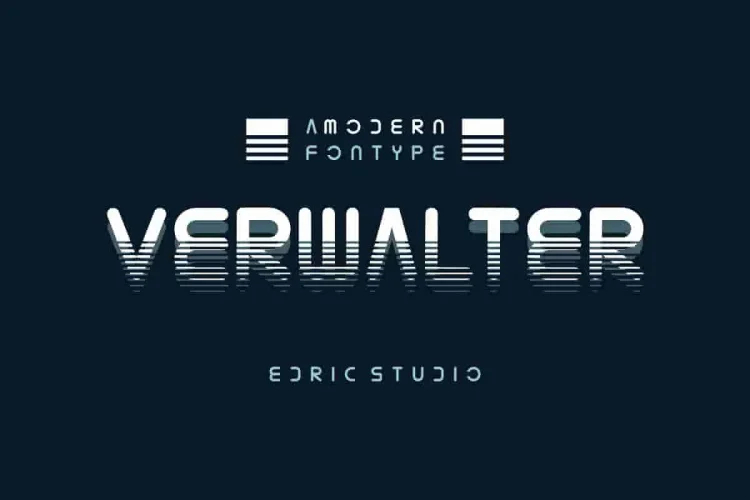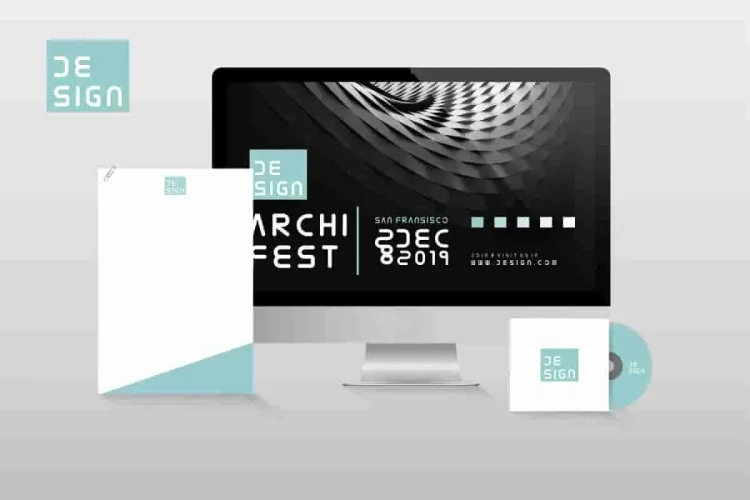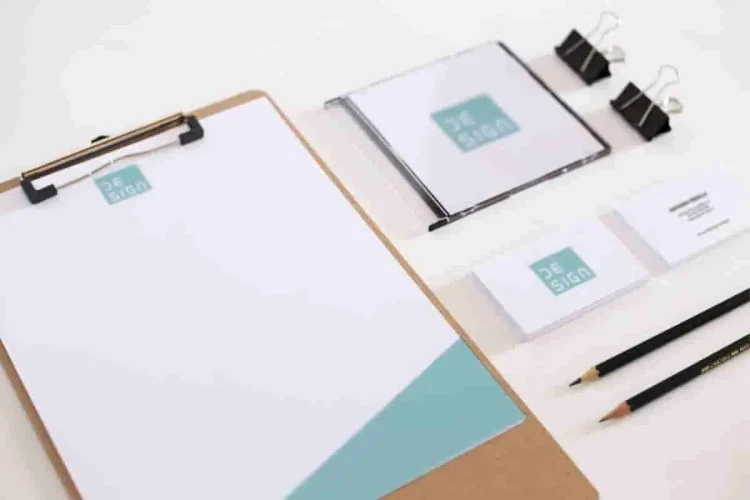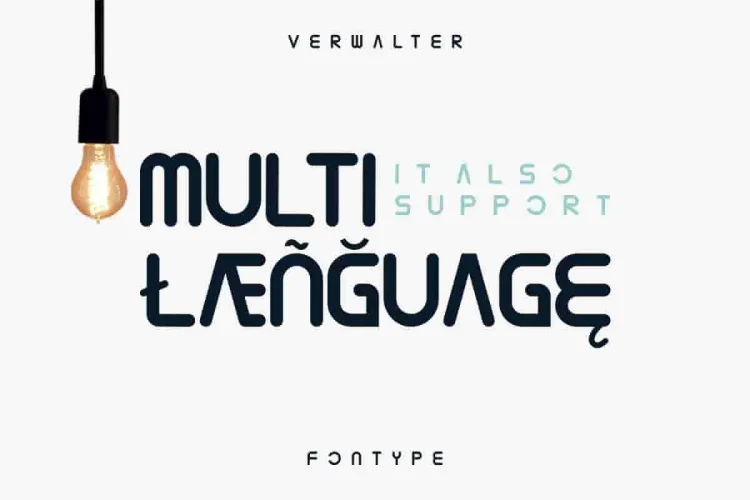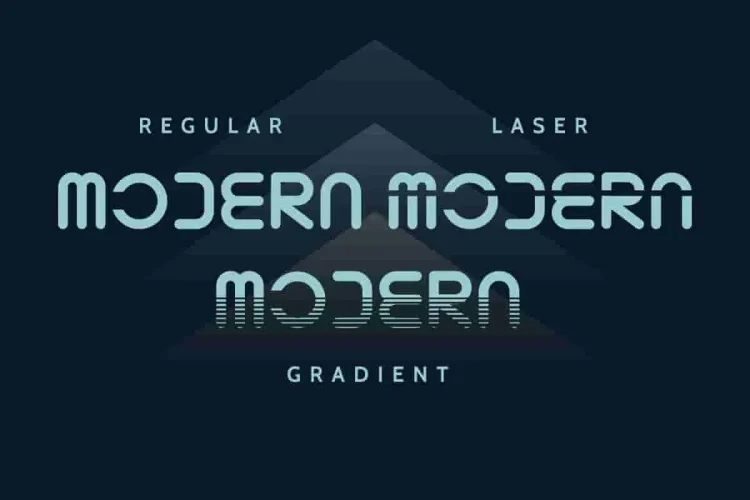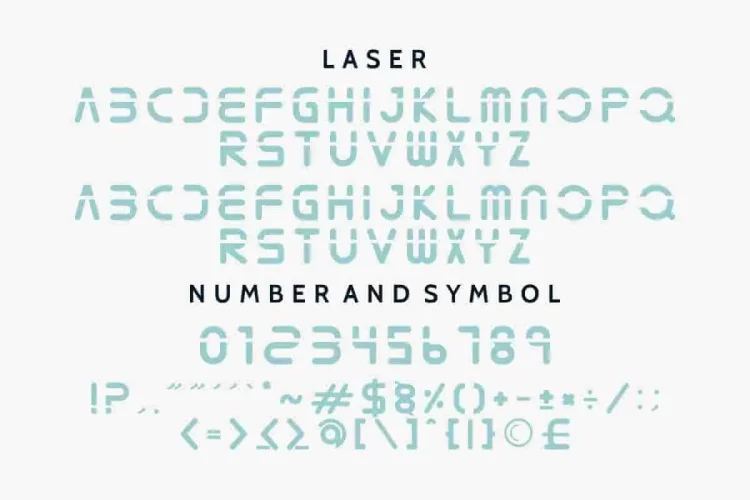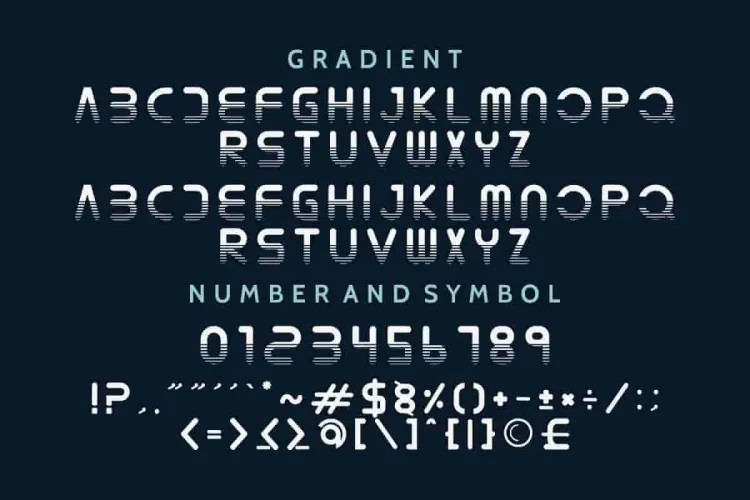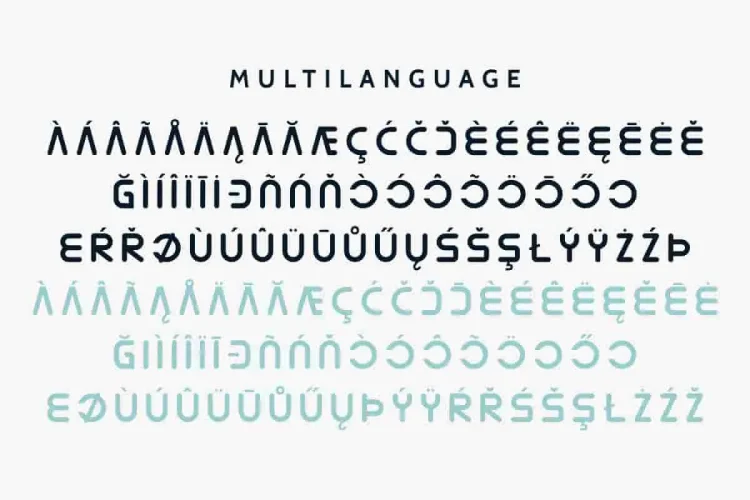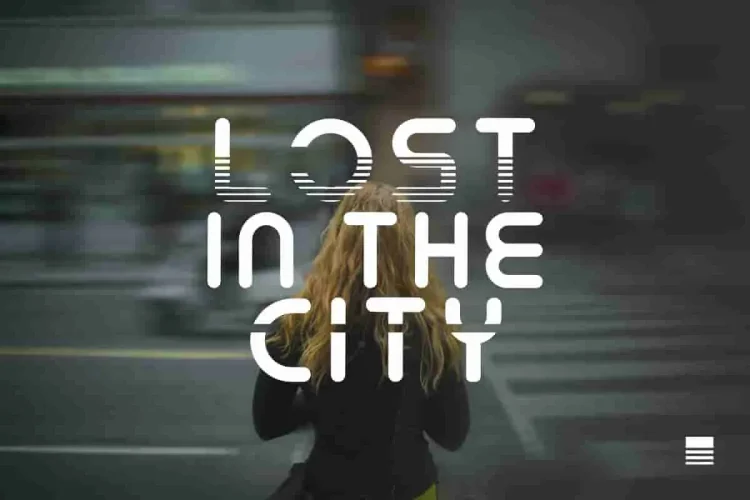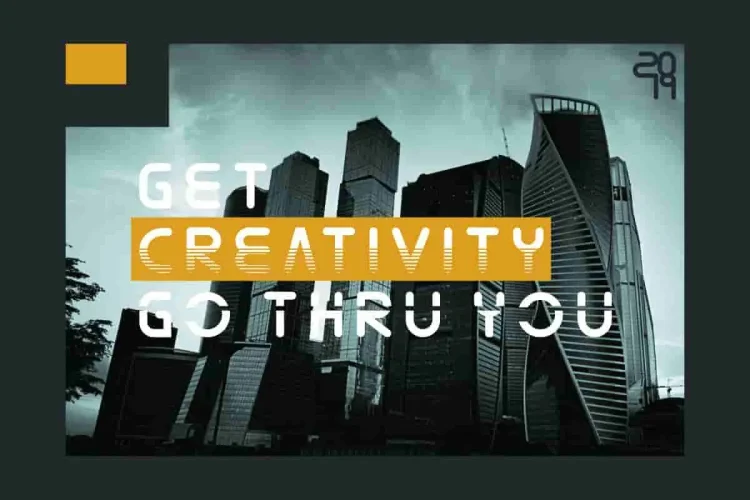
Verwalter Futuristic Font
Now, let us introduce our newest font :  Verwalter! Specifically, Verwalter is a display decorative futuristic techno modern font. It contains three styles : Modern, Monospaced Laser , and Gradient 3D typeface. It also support multilangguage characters. Therefore,Verwalter adds confidence and strength, great for branding, logo, stationery, business card, signage, flyer, brochure etc.
What makes Velwater stand out?
First, its bold and clean lines bring modern structure without losing personality. Second, the sharp terminals and minimal contrast create a high-tech, editorial feel. As a result, it’s perfect for industries like technology, fashion, architecture, or even automotive branding.
Additionally, this font includes multiple weights, giving you design flexibility. Use the regular weight for clean text, or go bold when you need attention. Furthermore, its all-caps style ensures visual balance in both digital and print applications.
✨ Key Features:
• Powerful display sans serif with strong identity
• All-caps structure for maximum impact
• Great for posters, logos, web headers, packaging, and signage